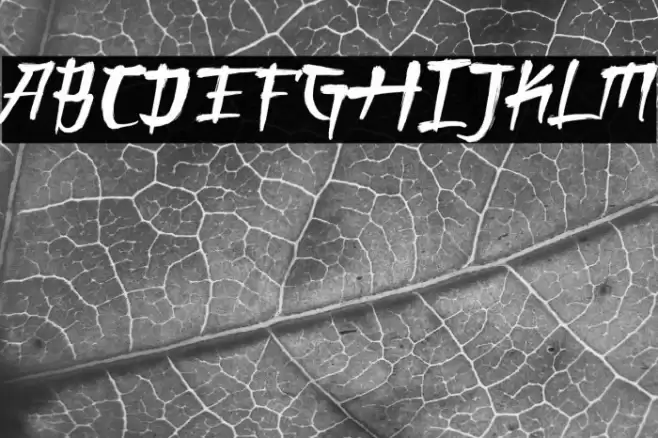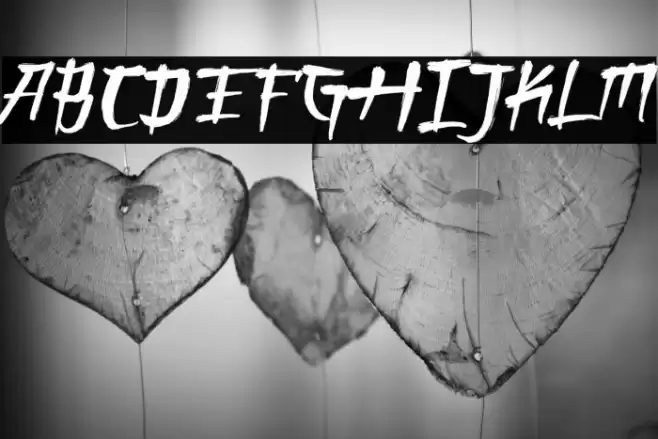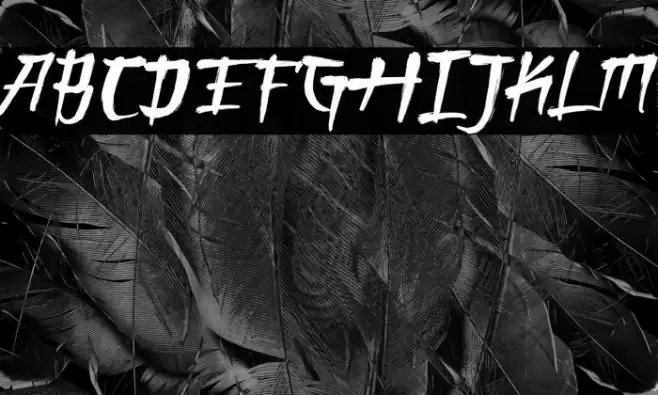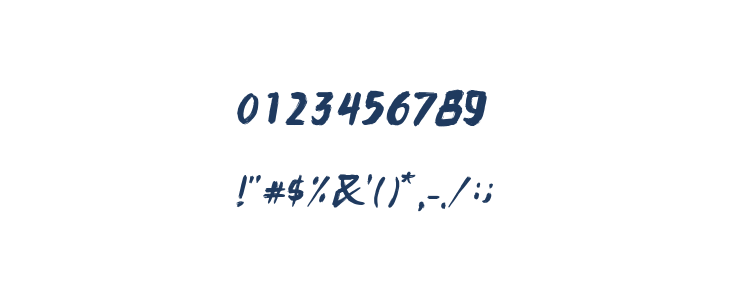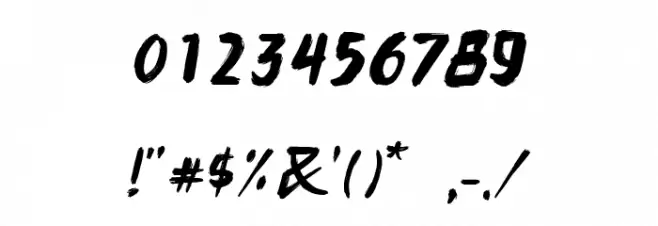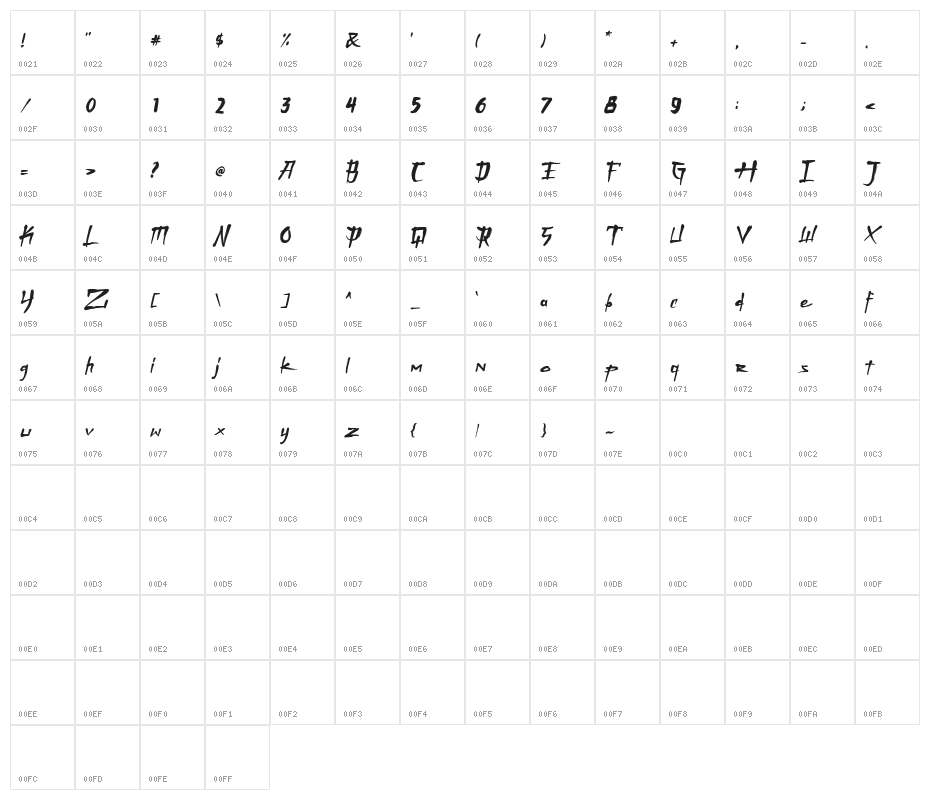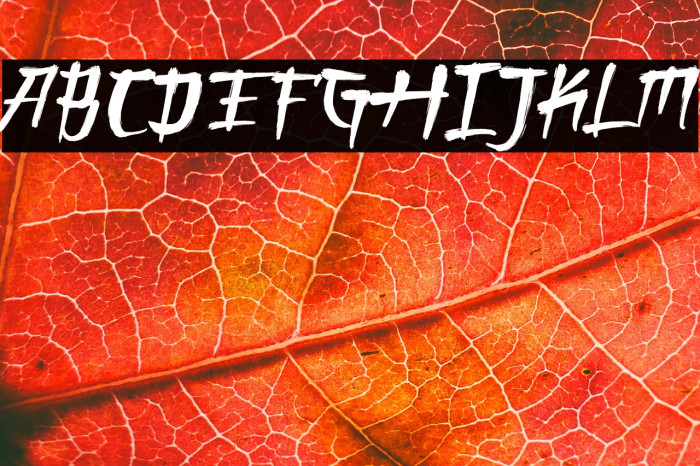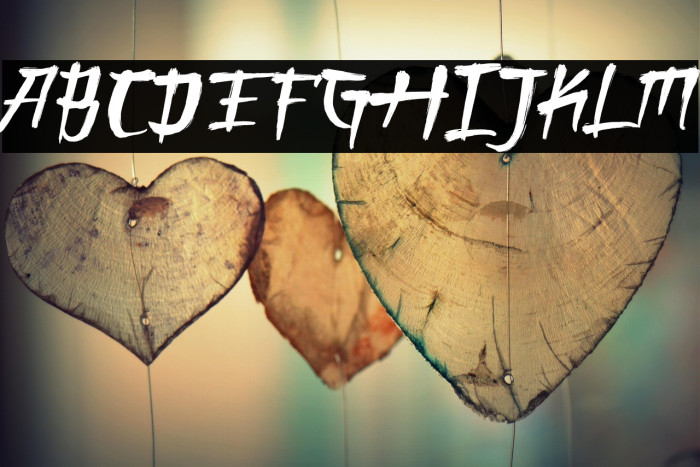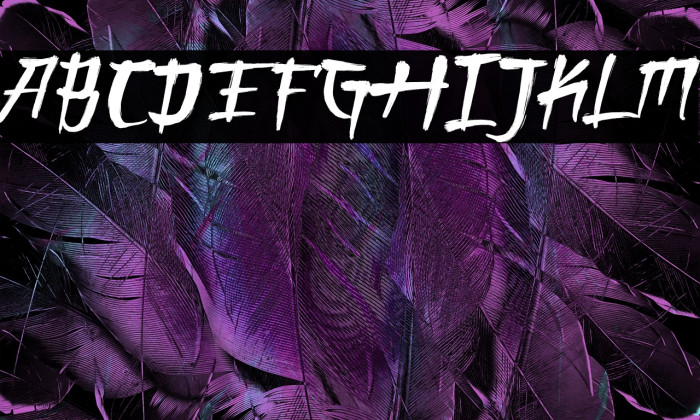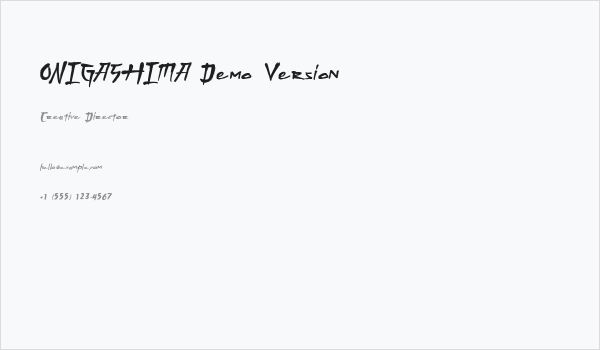
ONIGASHIMA Demo Version Font
ONIGASHIMA Demo Version Description
This font features a dynamic and edgy style, characterized by its sharp, angular strokes and a slightly chaotic appearance. The uppercase letters exhibit a bold, graffiti-like quality, with varying line thickness that adds a sense of movement and energy. The lowercase letters maintain this energetic style, with some characters having unique, unexpected flourishes. The numerals are bold and consistent with the overall aesthetic, while the special characters complement the font's distinctive look. This font's unique style makes it stand out, offering a modern twist on traditional script forms.
A dynamic, edgy font with sharp, angular strokes and a graffiti-like style from Uncategorized fonts.